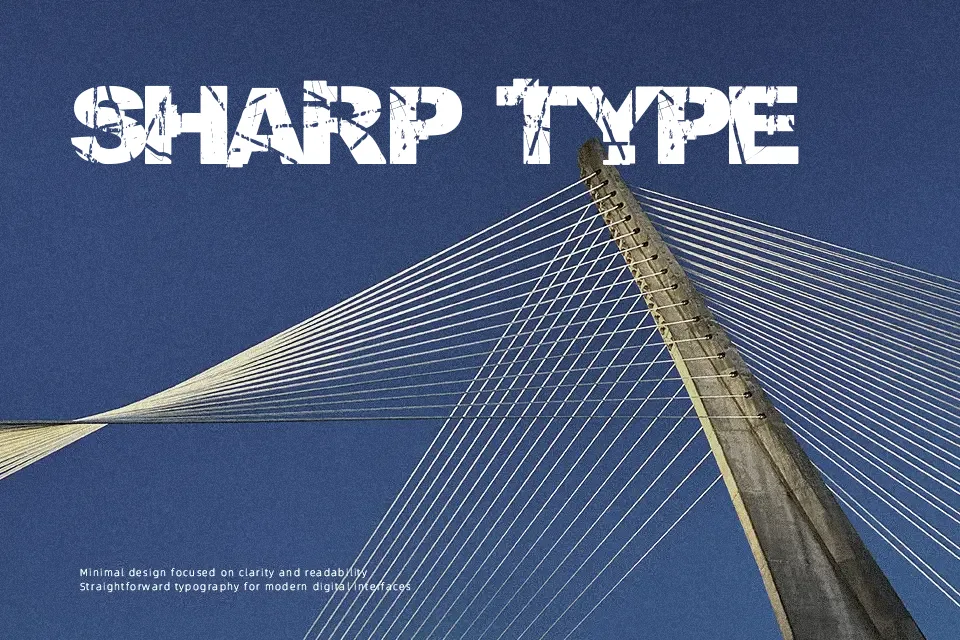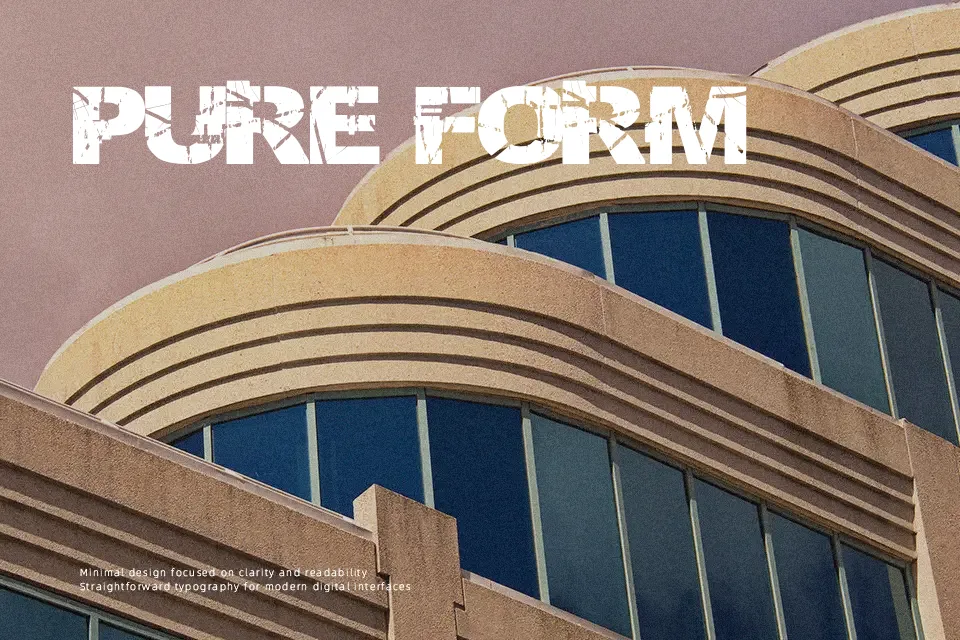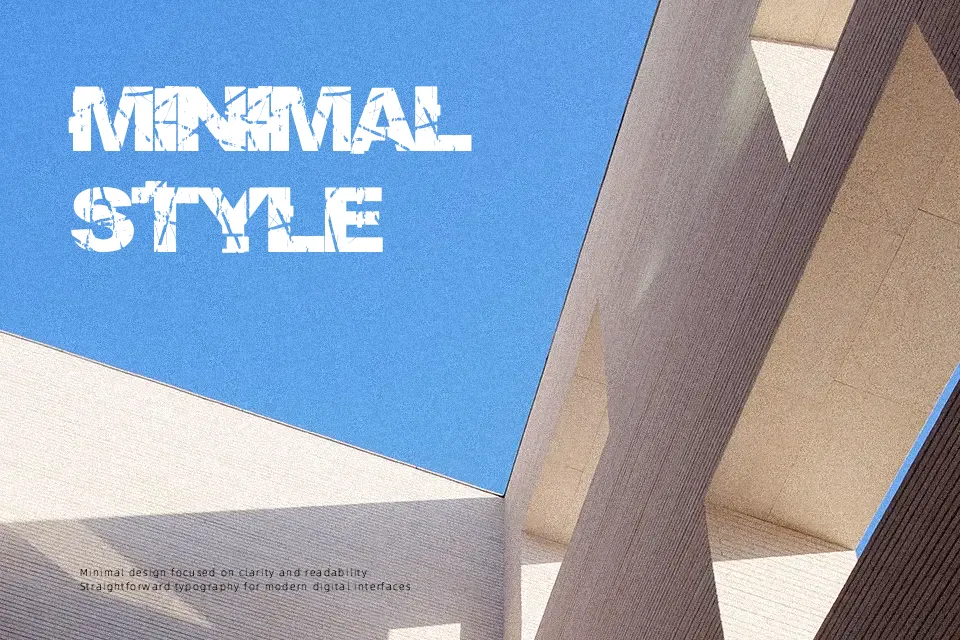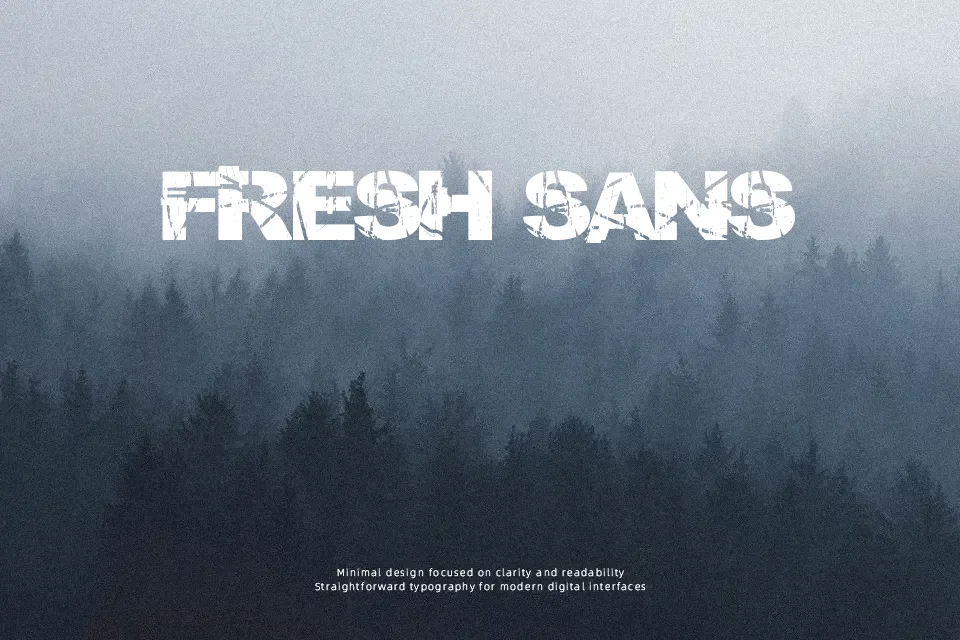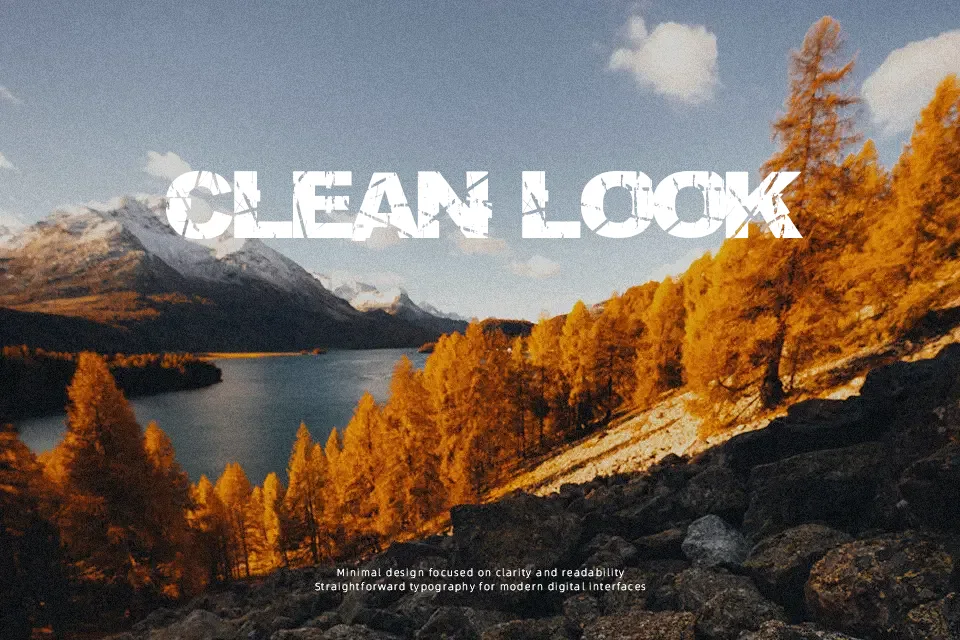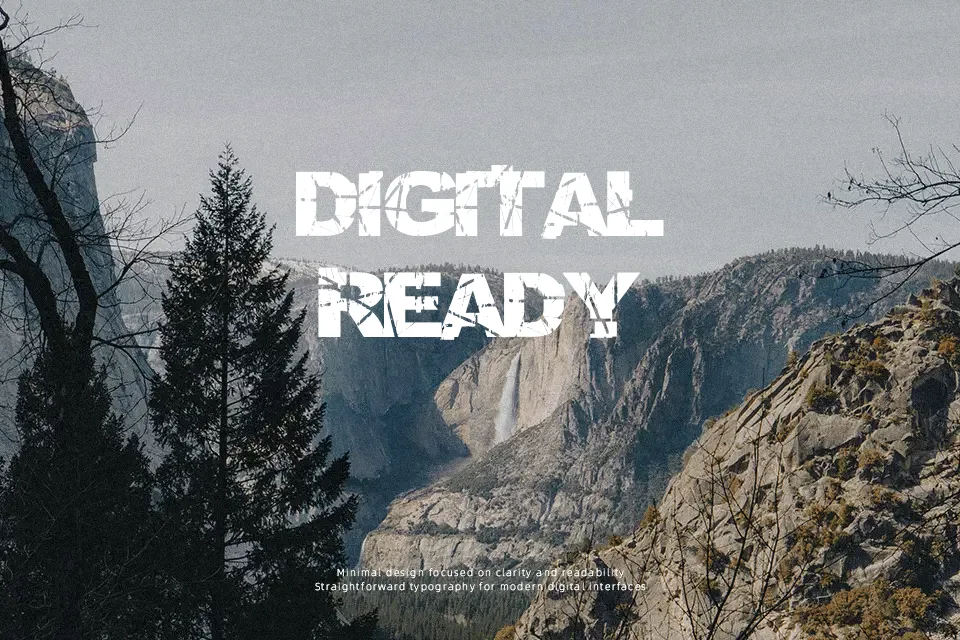
Skratch Punk Font
Designed with aggressive linear distress, Skratch Punk Font features bold, angular letterforms scored by horizontal scratch marks and jagged stroke contours. The typeface maintains relatively compact proportions with tight horizontal spacing, giving headline compositions a dense and chaotic energy. Solid core stems preserve fundamental letter shapes, ensuring basic legibility across large banner headers, music festival posters, and band merchandise. However, the heavy internal texturing and irregular silhouettes significantly degrade clarity when reduced to smaller point sizes. The design remains most effective in short, high-impact phrases where dramatic destruction enhances the overall composition, though dense paragraphs quickly become unreadable.
Best For: music festival posters, underground gig flyers, album cover titles, streetwear apparel graphics
Not Ideal For: continuous body text, corporate annual reports, small mobile UI labels, formal event invitations
Perfect for advertising, headline, and music, with a dark and decorative style.